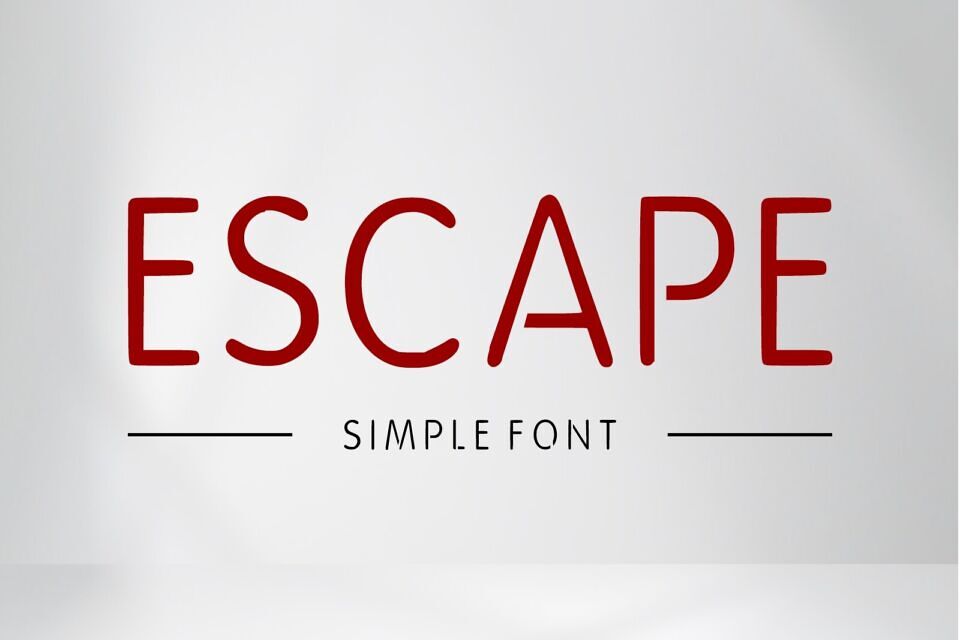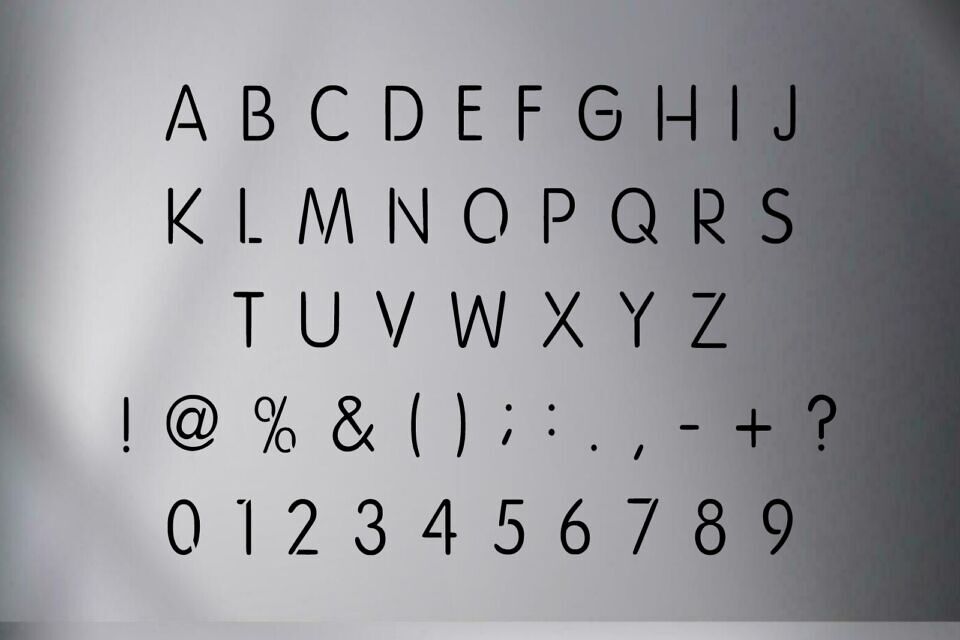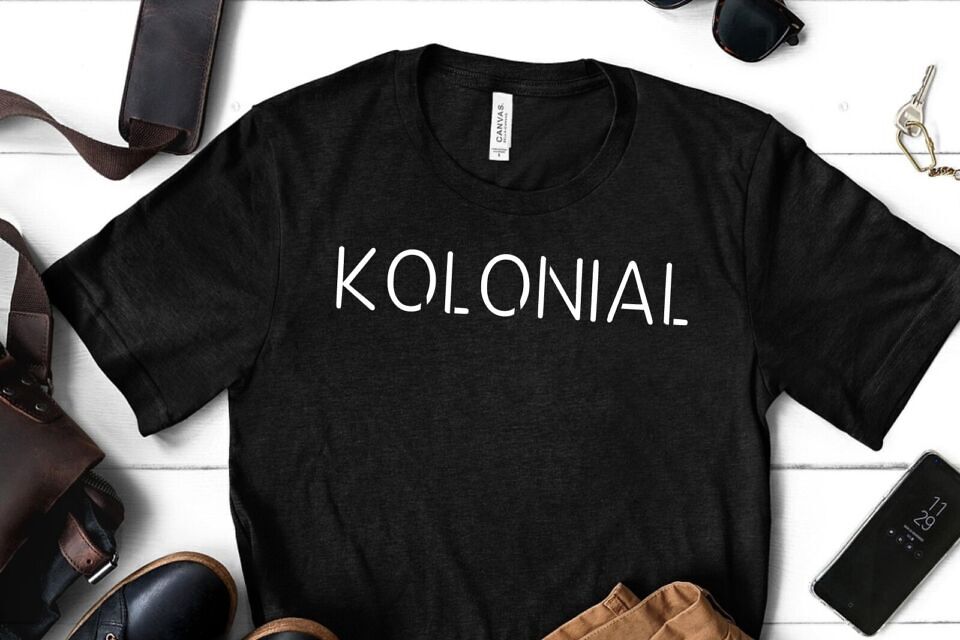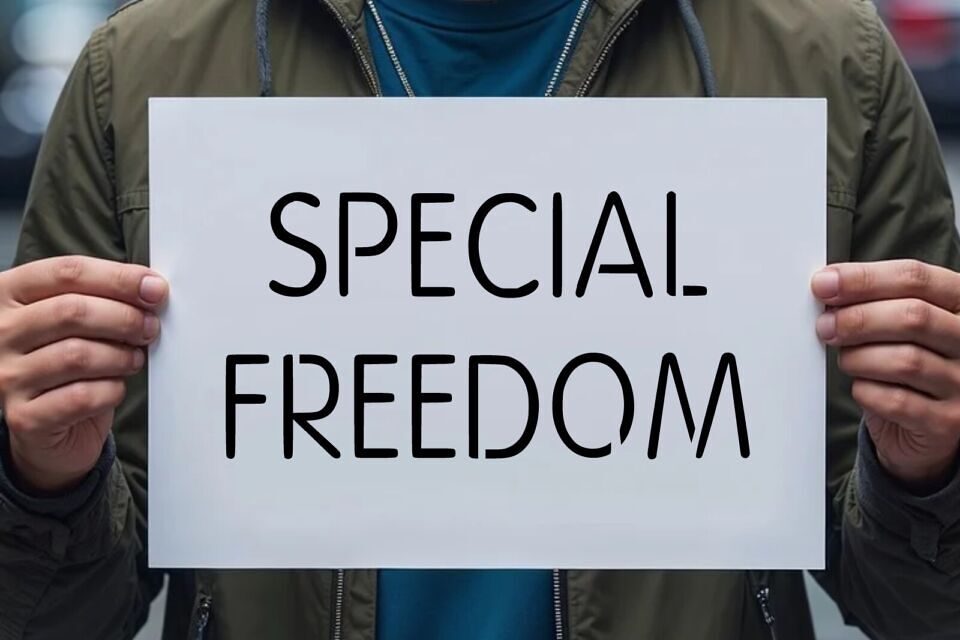
Escape Font
Escape is an Uppercase font, simple elegant, easy-to-read display font that conveys impeccable friendliness. Whether you’re using it for crafts, digital design, presentations, or greeting cards, this font has the potential to become your favorite go-to font, no matter the occasion!